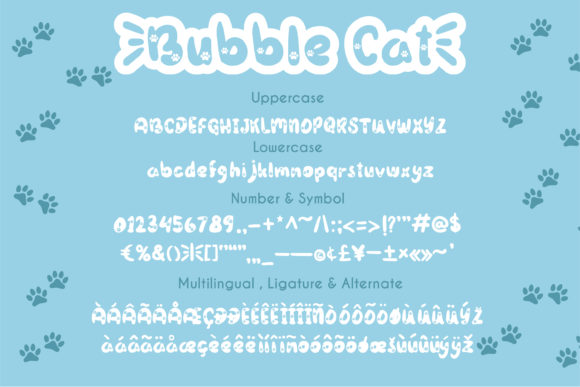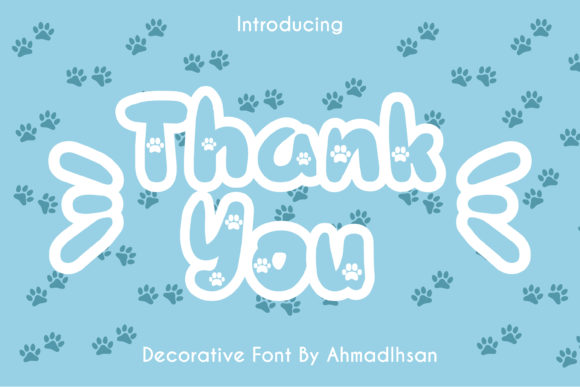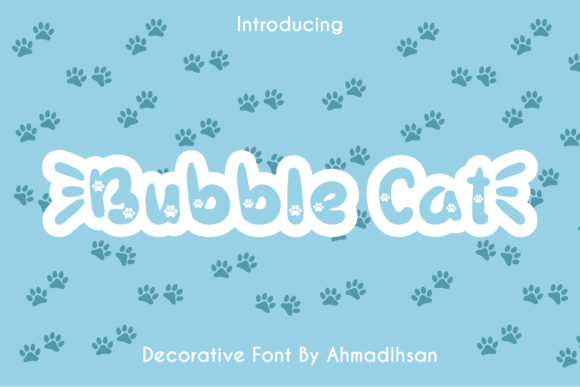
Bubble Cat Font: The Sweet and Chunky Lettered Display Font
Are you looking for a font that can add a touch of sweetness and friendliness to your creative projects? Look no further than the Bubble Cat Font! This delightful display font is perfect for designers and crafters who want to make their ideas stand out. In this article, we’ll dive into the world of Bubble Cat Font and explore its features, uses, and benefits.
What is Bubble Cat Font?
Bubble Cat Font is a sweet and chunky lettered display font that exudes a friendly feel. Its unique design makes it incredibly versatile, fitting a wide range of contexts and creative projects. Whether you’re working on a graphic design project, crafting a handmade card, or creating digital content, Bubble Cat Font is sure to add a touch of whimsy and charm.
Features of Bubble Cat Font
So, what makes Bubble Cat Font so special? Here are some of its key features:
- Sweet and Chunky Design: Bubble Cat Font features a unique blend of sweetness and chunkiness, making it perfect for creating eye-catching headlines and titles.
- Friendliness: The font’s friendly feel makes it approachable and inviting, perfect for projects that require a personal touch.
- Versatility: Bubble Cat Font is incredibly versatile, fitting a wide range of contexts and creative projects.
- Easy to Read: Despite its chunky design, Bubble Cat Font is easy to read, making it perfect for use in both digital and print projects.
Uses of Bubble Cat Font
Bubble Cat Font is perfect for a wide range of creative projects, including:
- Graphic Design: Use Bubble Cat Font to create eye-catching logos, posters, and flyers that grab attention.
- Crafting: Add a personal touch to your handmade cards, scrapbook pages, and other craft projects with Bubble Cat Font.
- Digital Content: Use Bubble Cat Font to create engaging social media graphics, blog posts, and other digital content.
- Signage: Bubble Cat Font is perfect for creating eye-catching signs and banners for events, businesses, and more.
Benefits of Using Bubble Cat Font
So, why should you choose Bubble Cat Font for your creative projects? Here are some benefits:
- Unique Design: Bubble Cat Font features a unique design that sets it apart from other fonts.
- Time-Saving: With Bubble Cat Font, you can create professional-looking projects in no time, saving you time and effort.
Tips for Using Bubble Cat Font
Here are some tips for getting the most out of Bubble Cat Font:
- Experiment with Colors: Bubble Cat Font looks great in a variety of colors, so don’t be afraid to experiment and find the perfect color scheme for your project.
- Pair with Other Fonts: Bubble Cat Font pairs well with other fonts, so try combining it with other fonts to create a unique look.
- Use for Headlines: Bubble Cat Font is perfect for use in headlines and titles, where its chunky design can really make an impact.